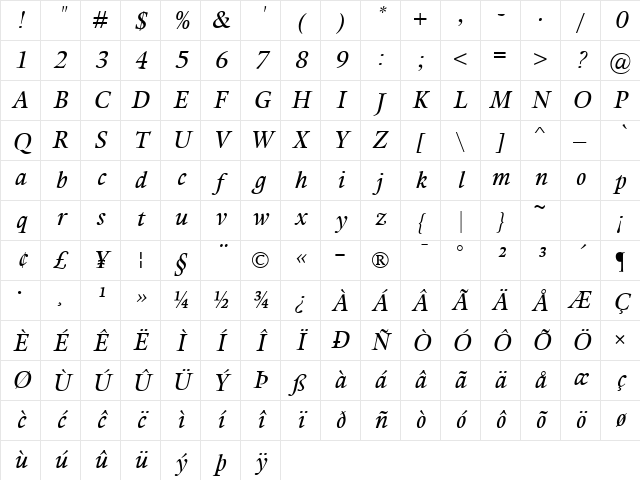
Kalix Italic
Kalix Family
Design Context for Kalix
Kalix is a composed and adaptable typeface that performs quietly and consistently across a wide range of design contexts. The slanted form adds forward momentum and visual energy.
Pro Tip: Use Kalix for emphasis, pull quotes, and subheadings where its slanted energy can add rhythm to the layout.